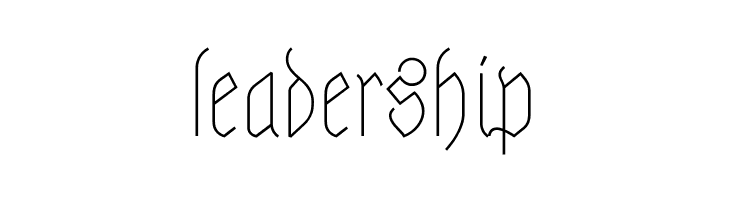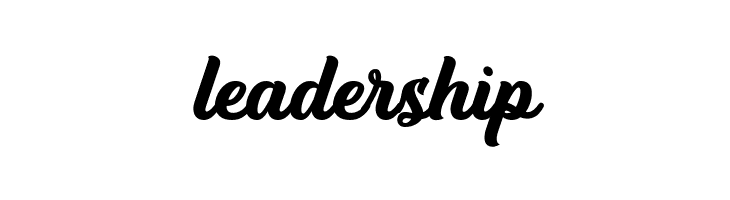
A playful, connected script font with consistent stroke width and whimsical curves.
An elegant script font with flowing, cursive letterforms and a sophisticated flair.
A graceful and elegant script font with flowing cursive letterforms.
A modern, expressive handwritten font with elegant, elongated strokes.
A playful, artistic handwritten font with fluid, connected letterforms.
A bold, handwritten-style font with a dynamic and playful character.
A bold, artistic font with a hand-drawn, whimsical style.
A bold, flowing script font with elegant, cursive letterforms.
A bold, high-contrast serif font with a modern twist.
A whimsical and decorative font with intricate loops and artistic flair.
A bold, decorative font with intricate swirls and loops.
A decorative font with ornate loops and curls, offering a whimsical and artistic flair.
A bold, playful handwritten font with rounded, connected letters.
A bold, three-dimensional font with geometric and modern design elements.
A bold, elegant script font with ornate, flowing curves.
An Art Deco-inspired font with geometric shapes and elegant lines.
A flowing, cursive font with elegant, interconnected letters.
A flowing, elegant script font with graceful curves and a decorative style.
A futuristic, geometric font with sharp angles and clean lines.
A bold, futuristic font with geometric and angular design elements.
A lively handwritten font with dynamic, flowing letterforms.
A dynamic, wavy font with a bold, decorative style.
Bold, distressed display font with a grunge texture.
A lively handwritten font with a playful and energetic style.
A font featuring astrological and astronomical symbols with a clean, precise style.
A bold, futuristic font with geometric and angular letterforms.
A bold, geometric font with a futuristic and digital aesthetic.
A decorative font with astrological and celestial symbols, perfect for mystical and creative designs.
A whimsical, decorative font with astrological themes and zodiac symbols.
A decorative font featuring zodiac symbols and calligraphic style.
A decorative collection of zodiac and astrology-themed symbols and illustrations.
Dynamic handwritten script font.